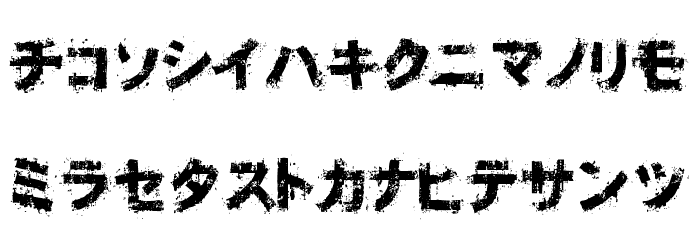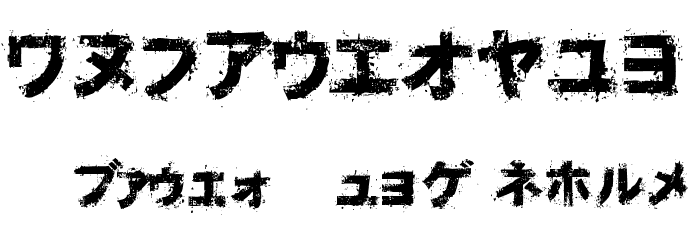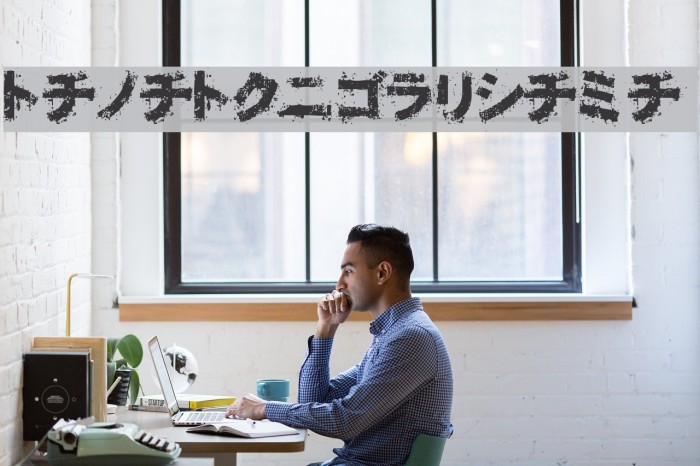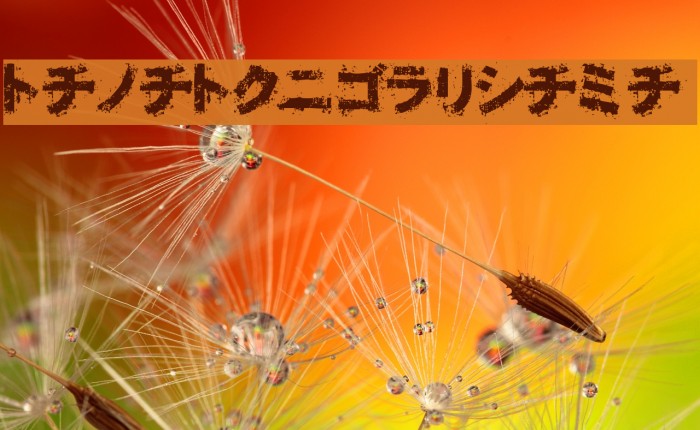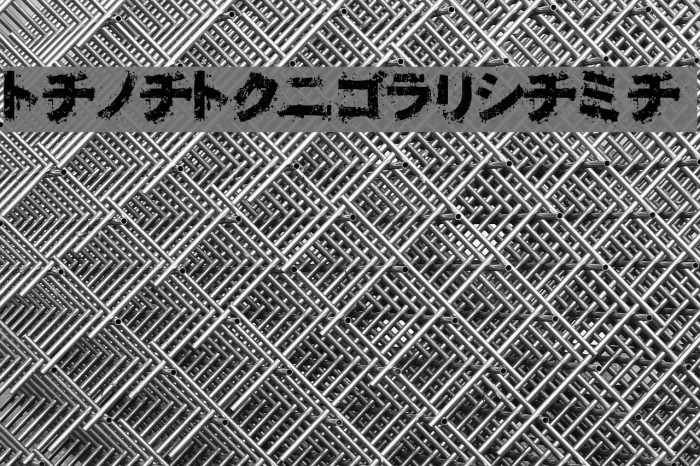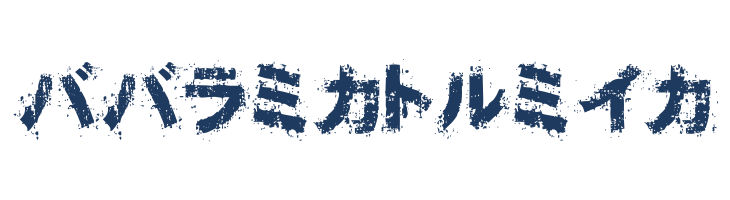
OsakashiBoldKana Font
This font features a bold and textured style, with a distressed appearance that gives it a unique and eye-catching look. The characters are bold and slightly irregular, adding a dynamic and energetic feel. The texture within each character creates a sense of depth and movement, making it suitable for designs that require a strong visual impact. The font maintains a consistent weight throughout, ensuring readability while still offering a distinctive aesthetic. Its boldness and texture make it ideal for creative projects that aim to stand out.
A bold, textured font with a distressed and dynamic appearance.